In this month’s roundup of the best new fonts, we’re showcasing the latest and greatest fonts from independent type foundries and designers worldwide.
Astronef Super
Astronef Super is a retro-futuristic font collection with seven styles that are meant to be mixed and matched. While the font is modular in design, there are wild variations in weight that you can have a lot of fun with.
Auguste
Auguste Serif and Auguste Sans Serif were originally drawn as a single stencil font that combined serif and sans serif styles. They ultimately became two separate fonts, with four weights apiece, that can be scaled up and down in size based on your needs.
Bartok
Bartok is an exciting font as it breaks with the concept of creating a family of unified styles. Instead, each of the four styles uses different structures and weights, meaning this font can be repurposed for a wide variety of brands and styles.
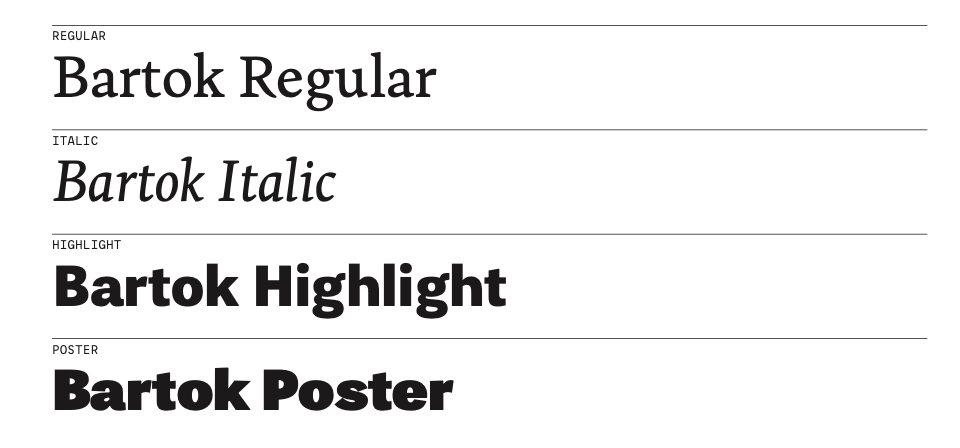
Cardone
Cardone is a type of serif known as Scotch Roman, designed for functionality and legibility. With its sturdy and brutal design, this serif is perfect for editorial content.
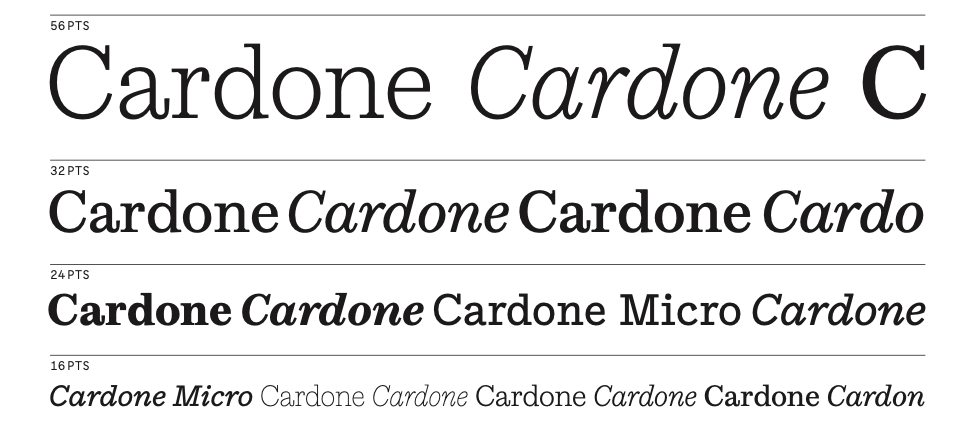
Champ
Champ is a fun and friendly font with nine weights. Because of its bold footprint, this serif performs best in branding and headlines.
Columba
Columba is modeled after old-style printing press typefaces. With its narrow, legible serif forms, Columba is most useful in text-heavy environments — both on the web as well as for printed brand materials.
Deia
Deia is a bracketed serif font with seven fonts. Thanks to the curved stroke transitions in Deia’s character set, this font is full of personality and would work great in product packaging and website branding.
Garton
Garton is a 19th century-inspired typewriter typeface that would look great on literary and editorial websites. This uniquely elegant font has three weights with italic companion sets for each.
Halisa
Halisa is an extensive font family with 60 styles, five widths, and six weights (plus italics). The designer drew inspiration from 19th-century factory signs to come up with this legible semi-constructed grotesque typeface.
Helvetica Now Variable
Helvetica Now Variable is an upgrade on Helvetica Now and the original 1957 Helvetica design. This one, however, adds over a million new Helvetica styles to the fold (all in one font file), which designers can use to create all kinds of digital and print content, including typographic animations.
Palast
Palast is a type system that consists of three sub-families: Palast Text, Palast Display, and Palast Poster. Designers can use this carefully crafted serif font family pretty much anywhere they want — from clients’ websites to promotional print graphics.
Parco
Parco is part of the new wave of humanistic typographic design. With Parco’s compact spacing and tall characters, this font will help designers craft eye-catching and highly legible headlines and branding.
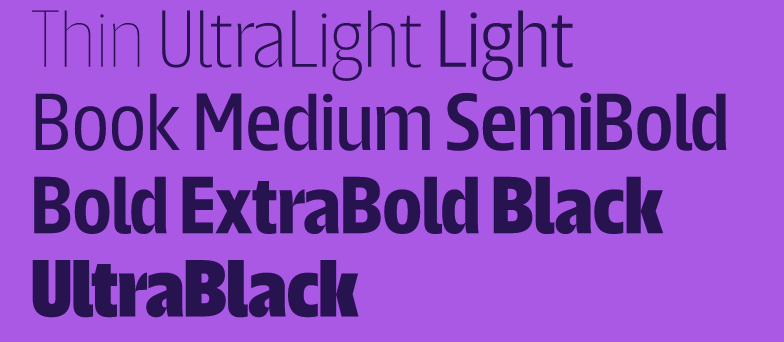
Right Gothic
Right Gothic is a huge font family, containing 98 styles — seven weights, seven widths, 20-degree italics, and an adjustable contrast axis. While this contemporary font is a sans serif, it draws upon typical serif anatomy with its high contrast between thick and thin strokes.
Rund Text
Rund Text is a geometric sans serif that looks both stylish yet comfortable. It also has a companion Display family available to designers who want to bring the same type of functional design to larger headlines or branding.
Sculpin
Sculpin is another variable font to make this list of the best new fonts. This sans serif font was designed as if a chisel and brush had been used, giving it a structured, hand-crafted feel.